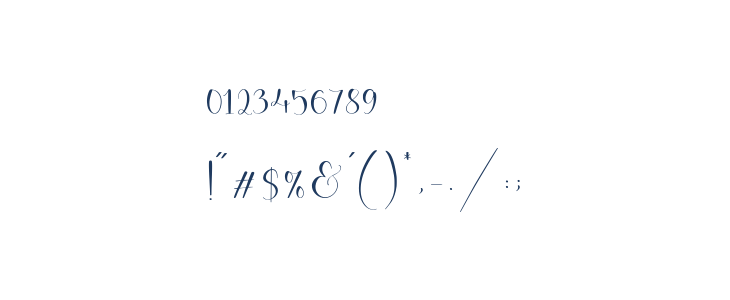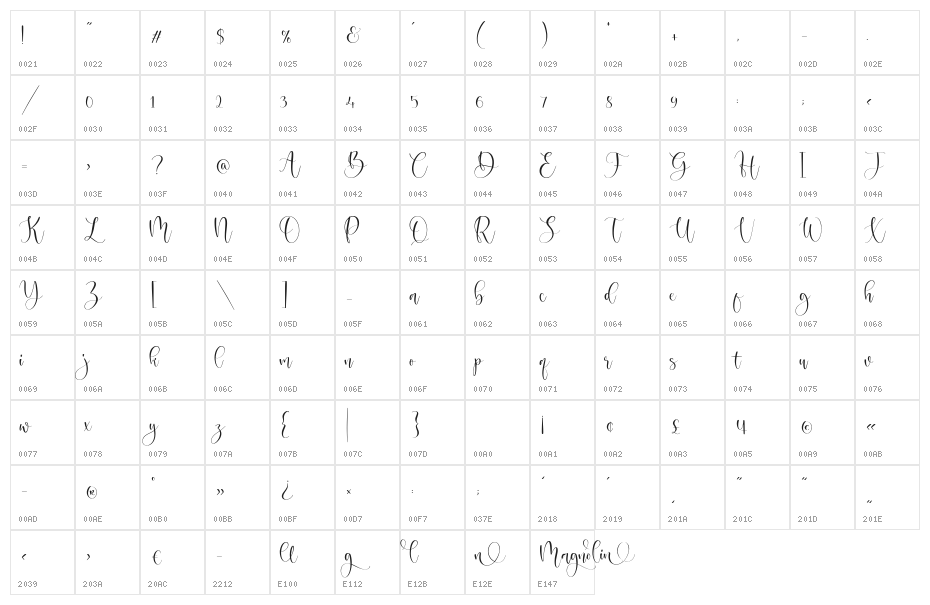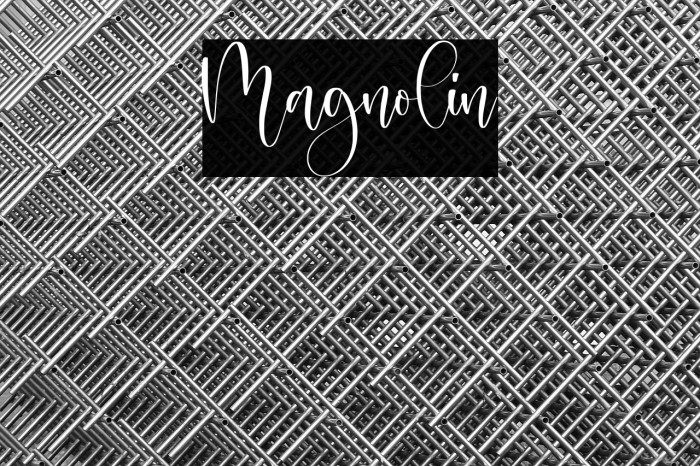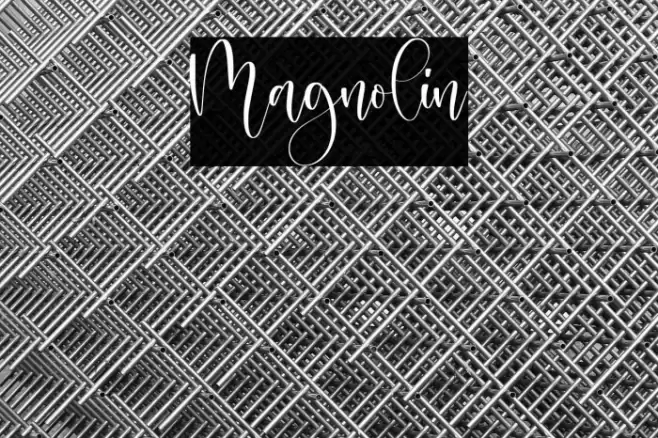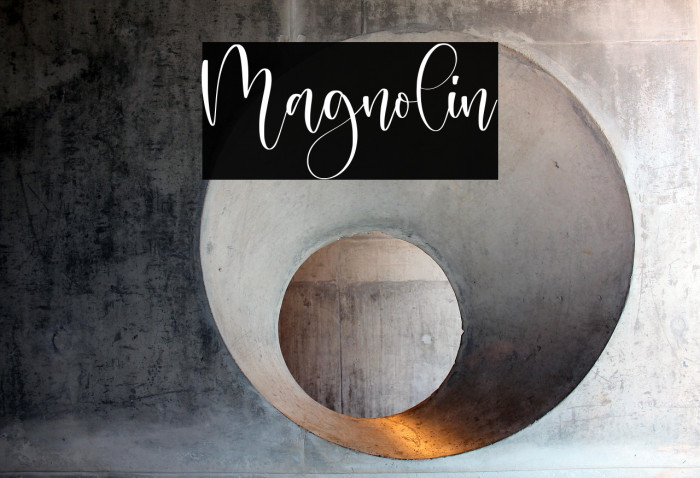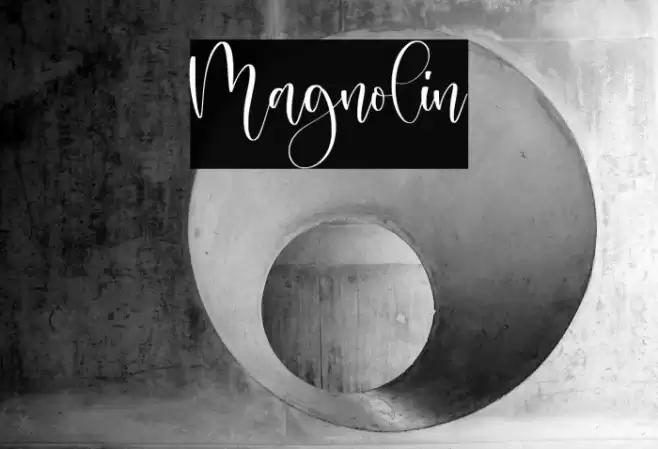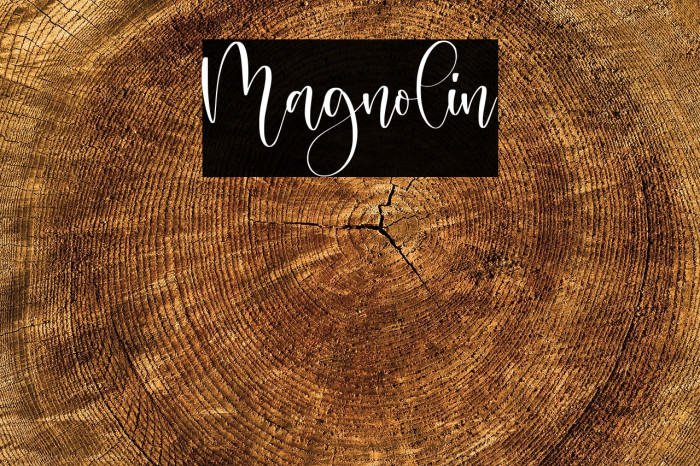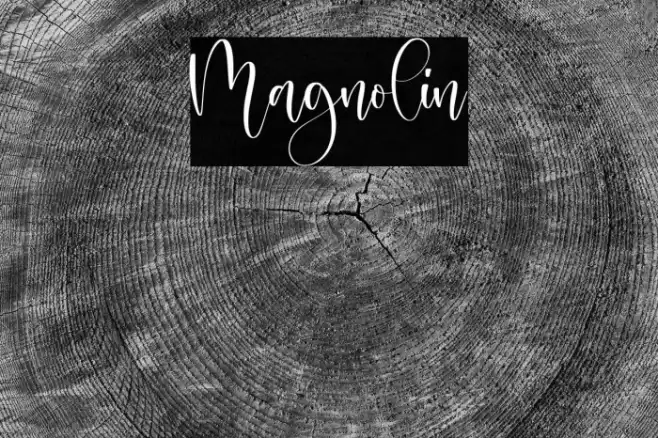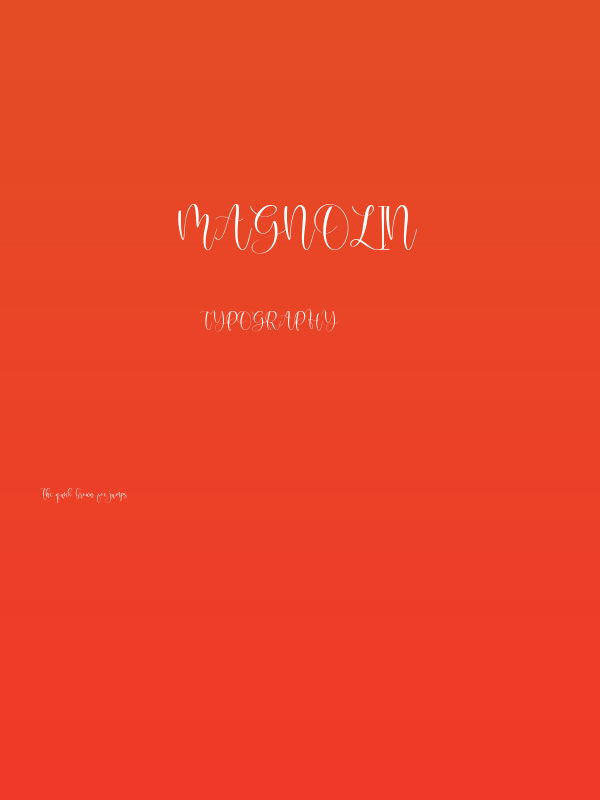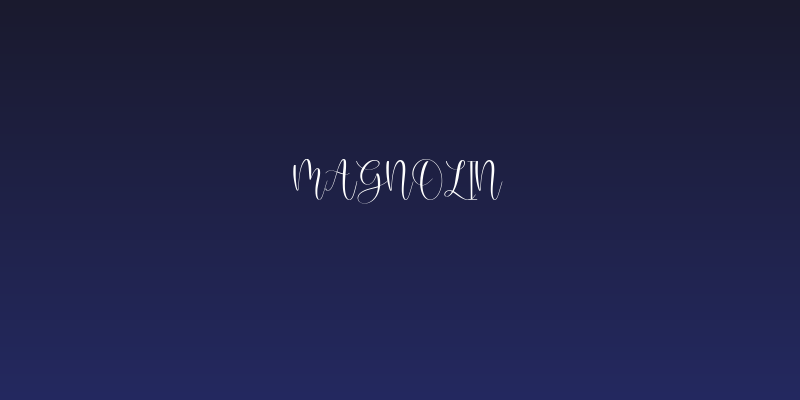
Magnolin Font
Magnolin Description
This font exudes elegance and sophistication with its flowing, cursive style. The characters are intricately designed with delicate loops and swirls, giving it a handwritten feel. The uppercase letters are particularly ornate, featuring exaggerated flourishes that add a touch of drama. The lowercase letters maintain a consistent style, with smooth curves and a graceful appearance. Numbers and special characters are also crafted with the same attention to detail, ensuring a cohesive look across all text. This font is perfect for projects that require a personal touch, such as invitations, greeting cards, or branding materials that aim to convey elegance and refinement.